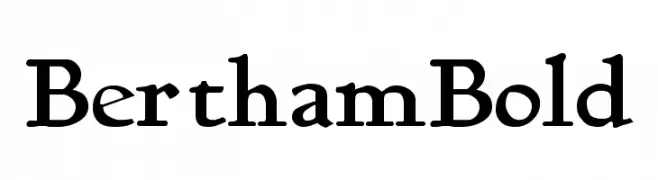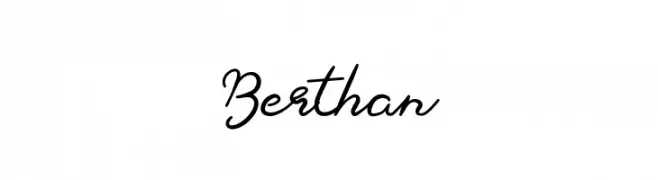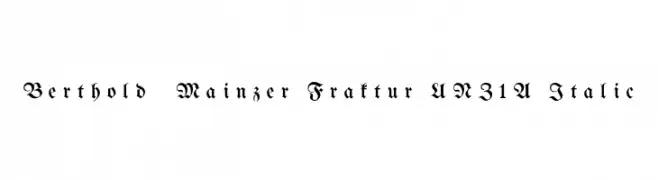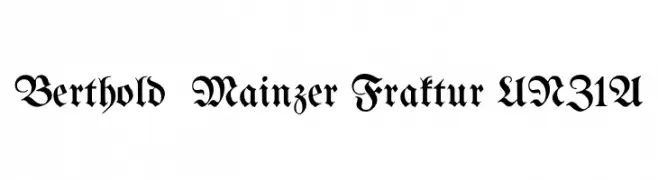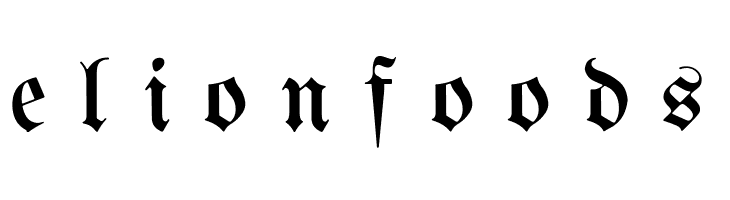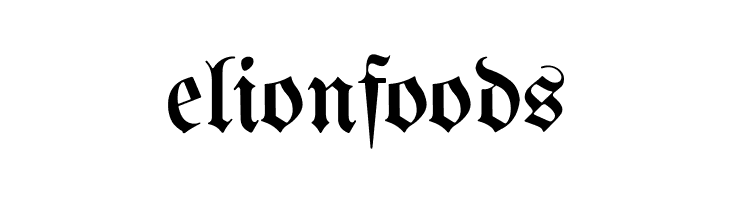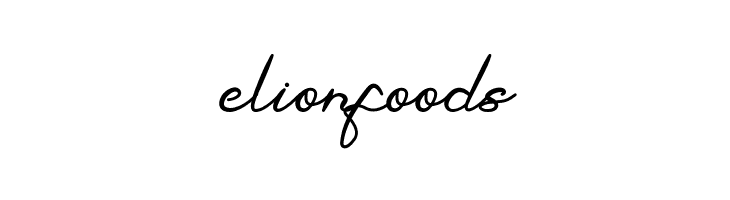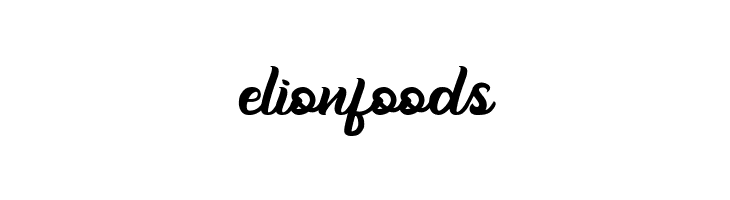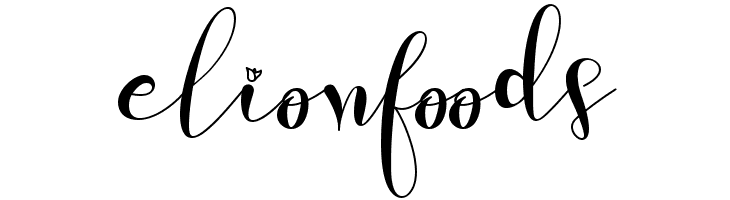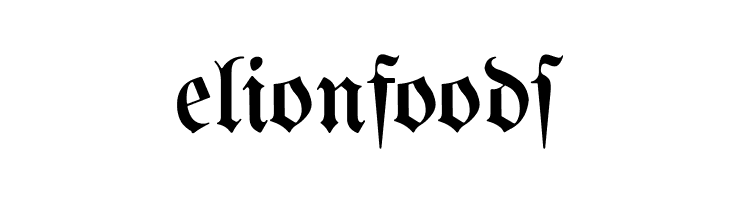
A bold, classic serif font with elegant and authoritative design.
A classic and elegant cursive script font with flowing letterforms.
A bold, flowing script font with elegant, cursive letterforms.
An elegant, flowing script font with artistic flourishes and a playful yet sophisticated style.
An ornate and traditional font with intricate, angular characters.
A traditional Blackletter font with intricate, ornate letterforms and a historical aesthetic.
A traditional blackletter font with ornate, angular letterforms and decorative flourishes.
An ornate and decorative font with historical elegance.
An ornate Blackletter font with intricate, angular designs and historical elegance.
A classic Blackletter font with intricate, gothic-style characters.